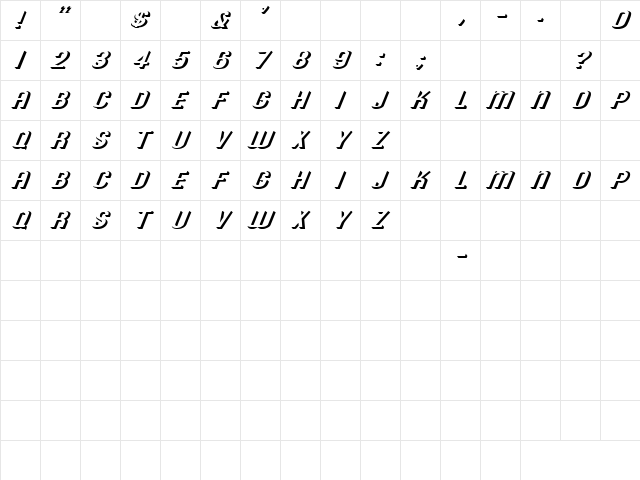
Shadow 2 Italic
Design Context for Shadow 2 Typeface
Shadow 2 is built around its visual character rather than neutral utility — its distinctive forms are designed to make an impression at display sizes. The dynamic lean of this cut emphasises speed and emphasis in any layout.
Font Pairing: Pair with a clean neutral sans-serif for body copy to let Shadow 2's character lead without overwhelming the composition.
Pro Tip: Treat Shadow 2 as the centrepiece of your typographic hierarchy. One strong heading set in a decorative face can carry an entire layout.